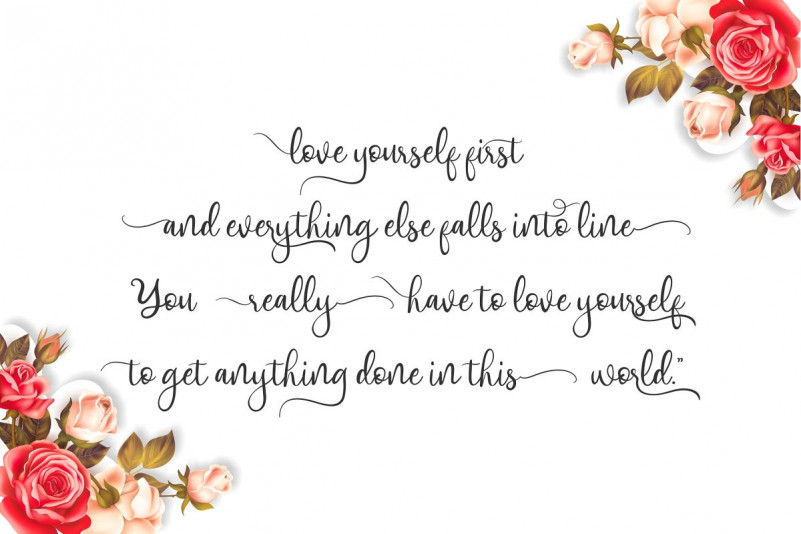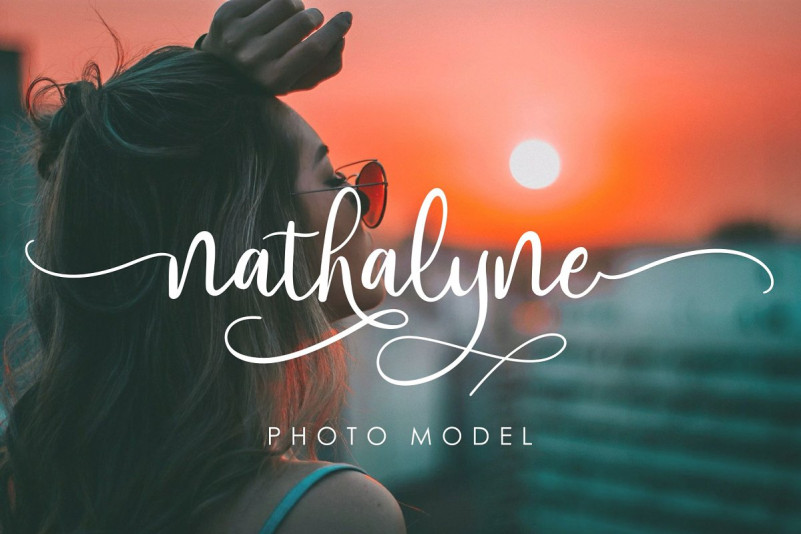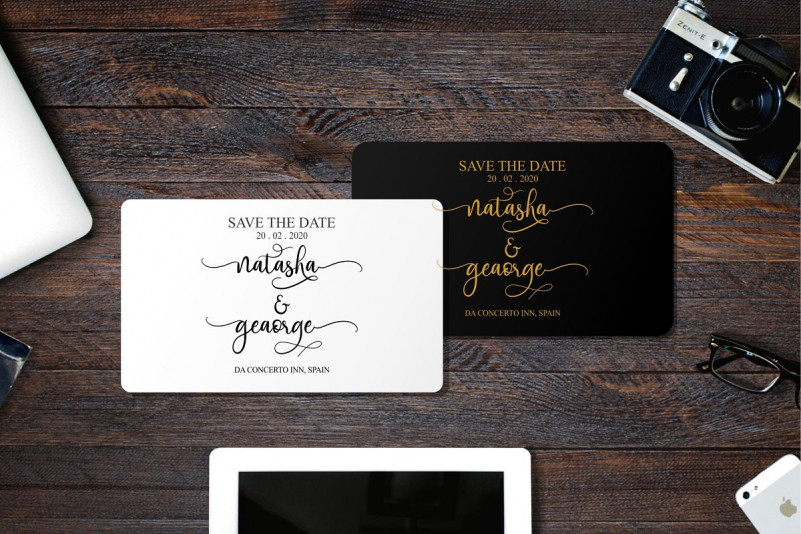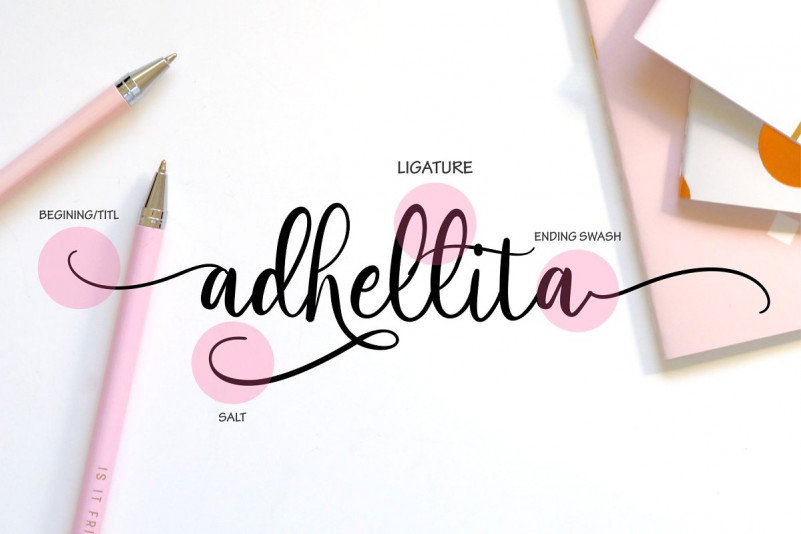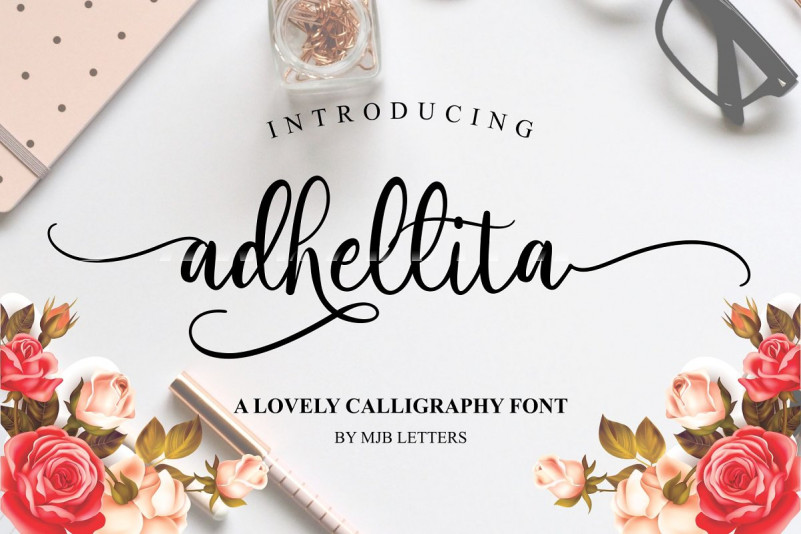
Adhellita Script Font
It’s a pleasure to announce that an outstanding Adhellita Font, a lovely calligraphy font, available for free download! It’s an amazing calligraphy typeface with incredible swashes and alternates. It will add a unique spark to any design! Great choice for your all seasonal upcoming projects, crafts, wedding, businness related, or even for your social media posts.